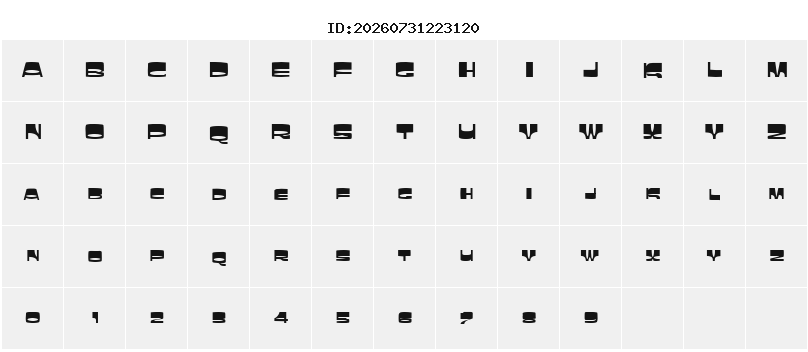
Laughin Preview
• Font Name: Laughin
• Full Font Name: Laughin
About Laughin.ttf
Laughin.ttf is a modern, elegant sans-serif font designed for ultimate readability and visual harmony. Perfect for branding, headlines, web design, and print materials.